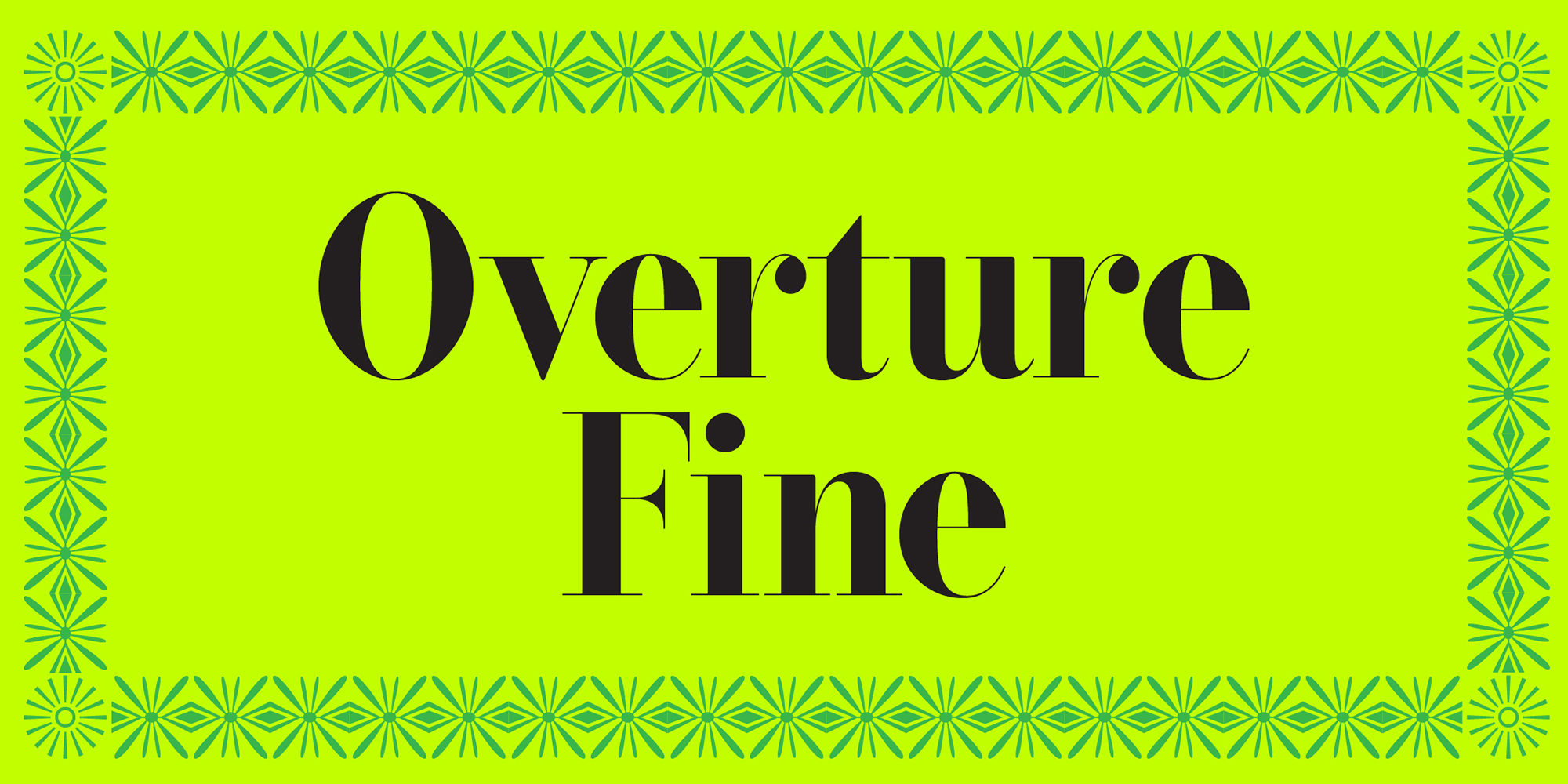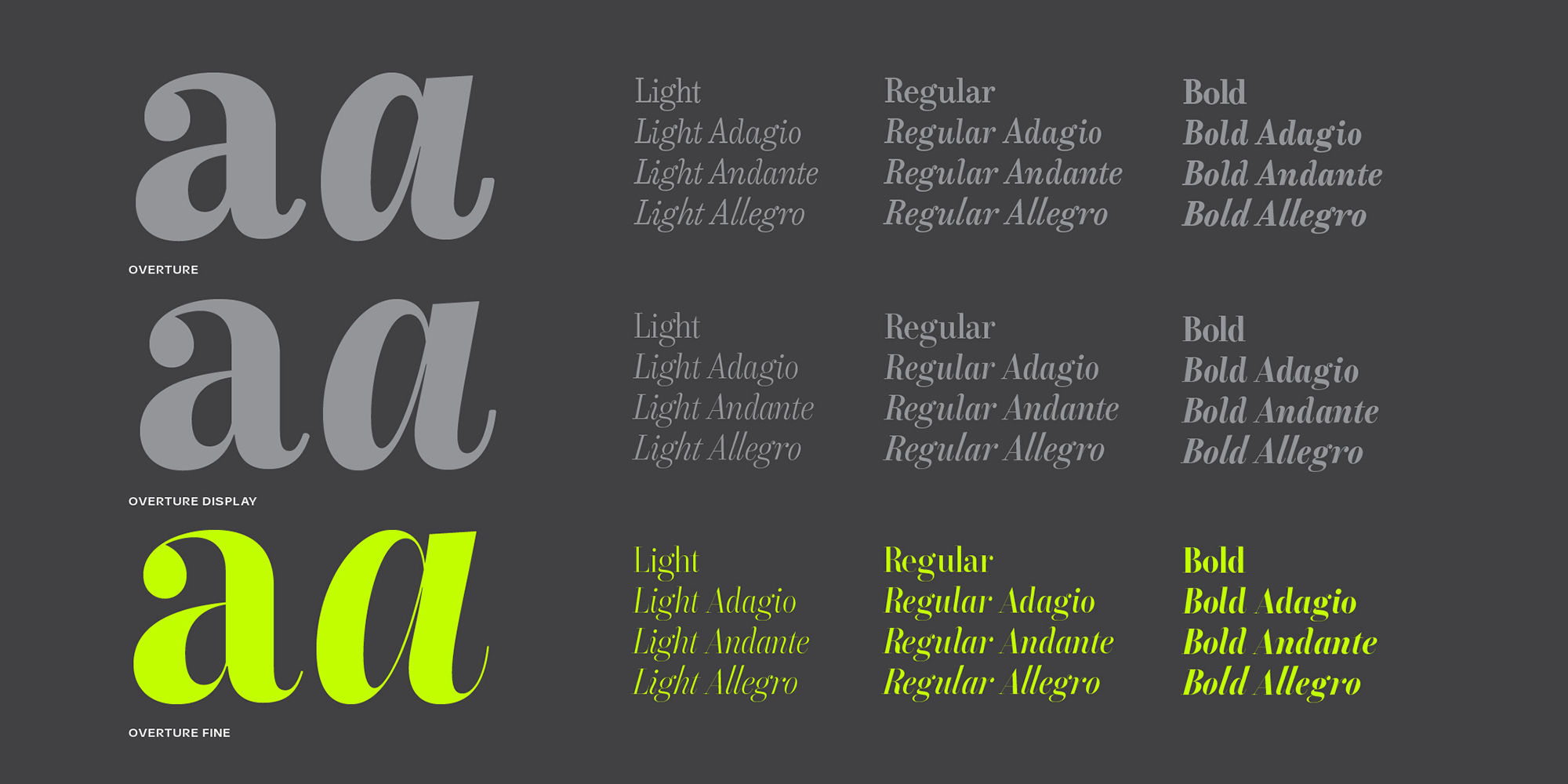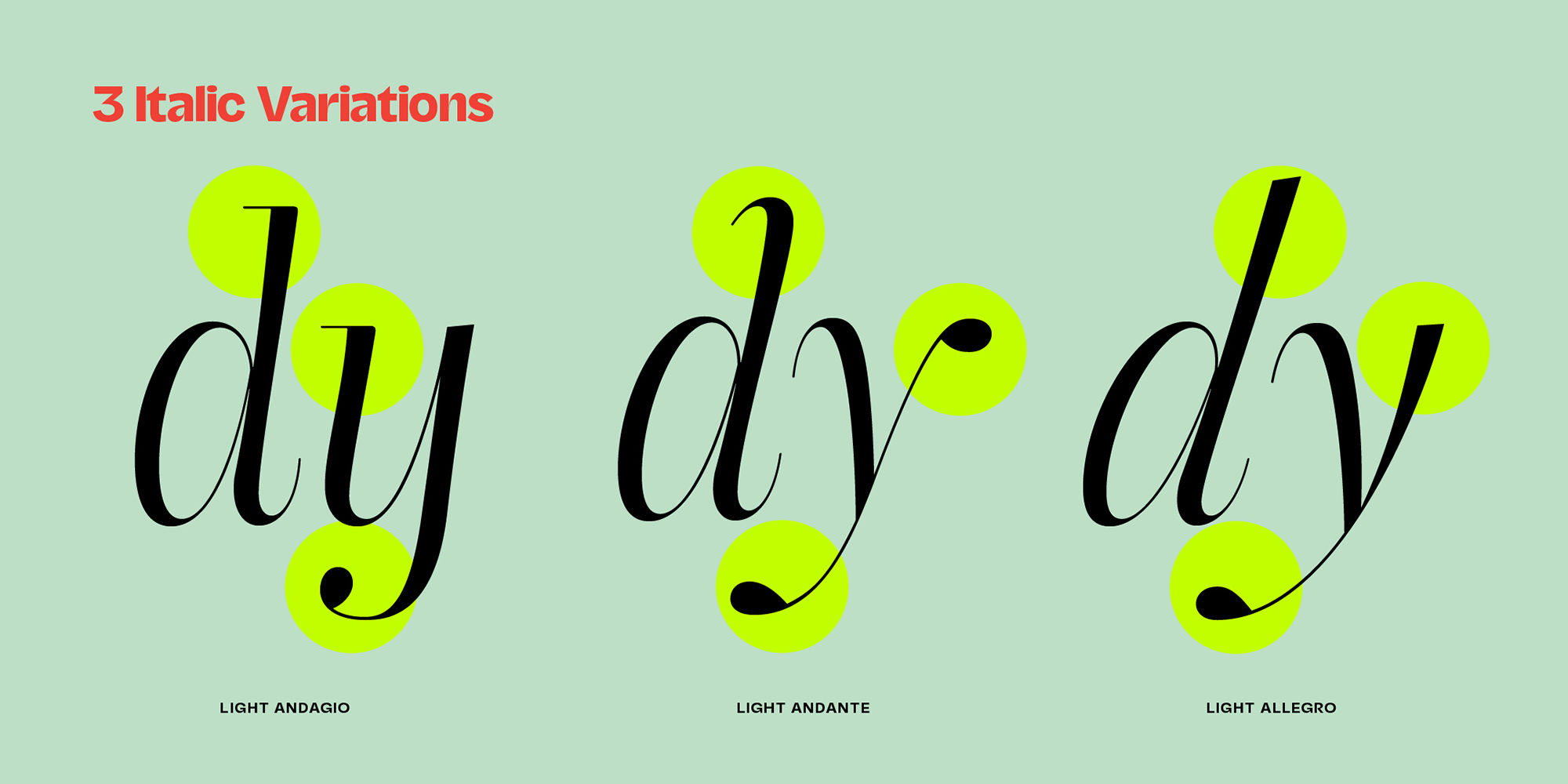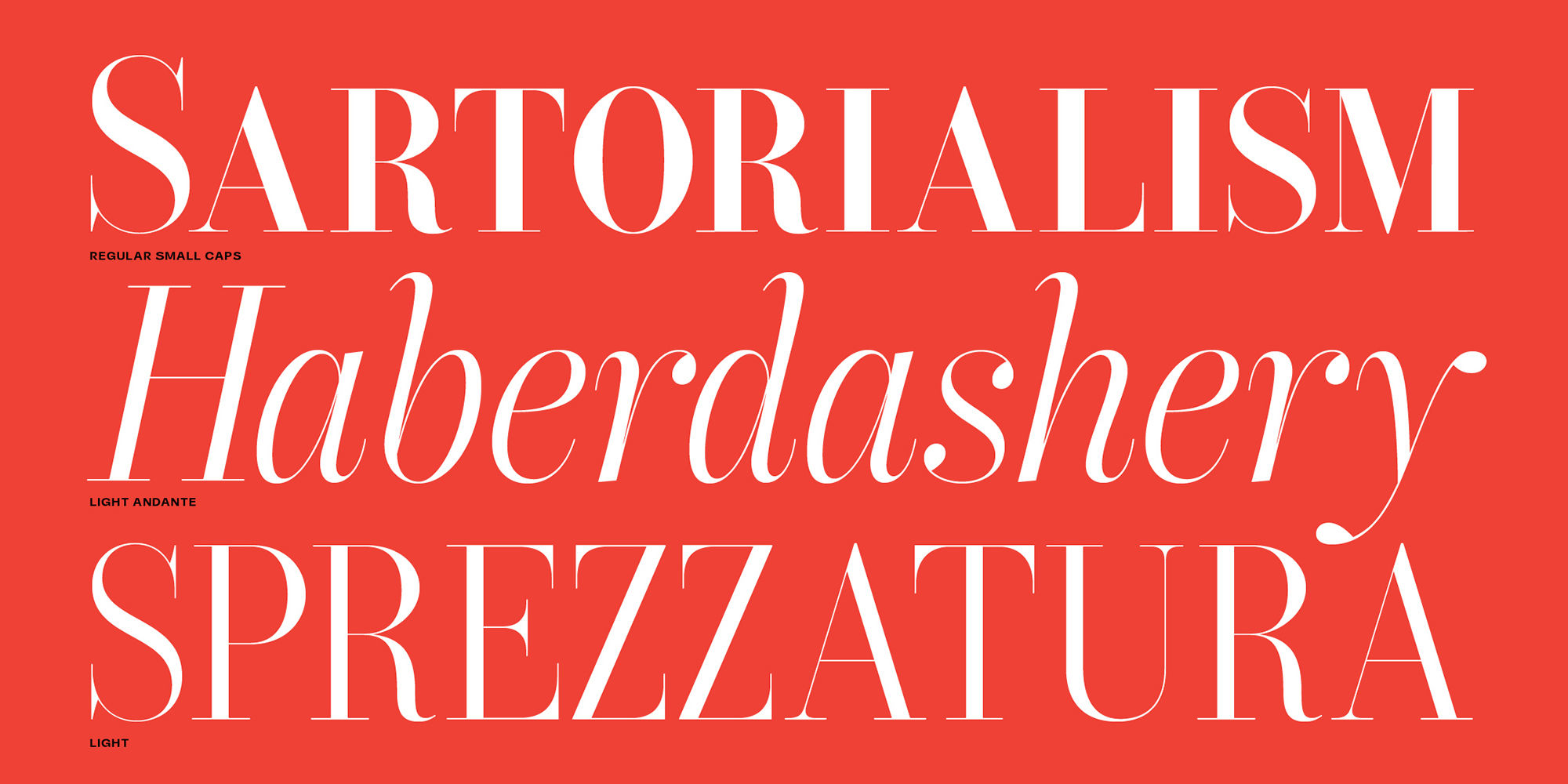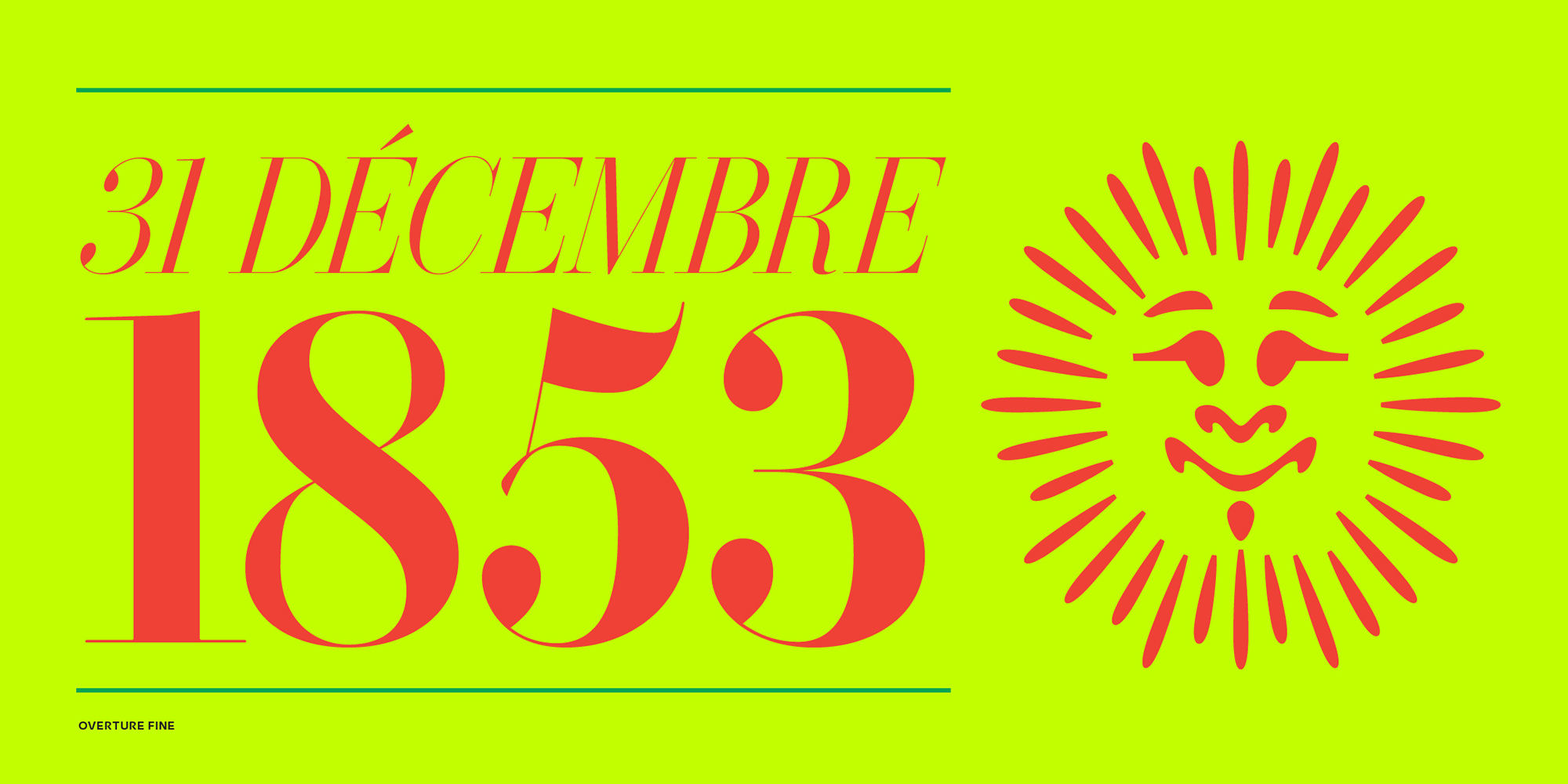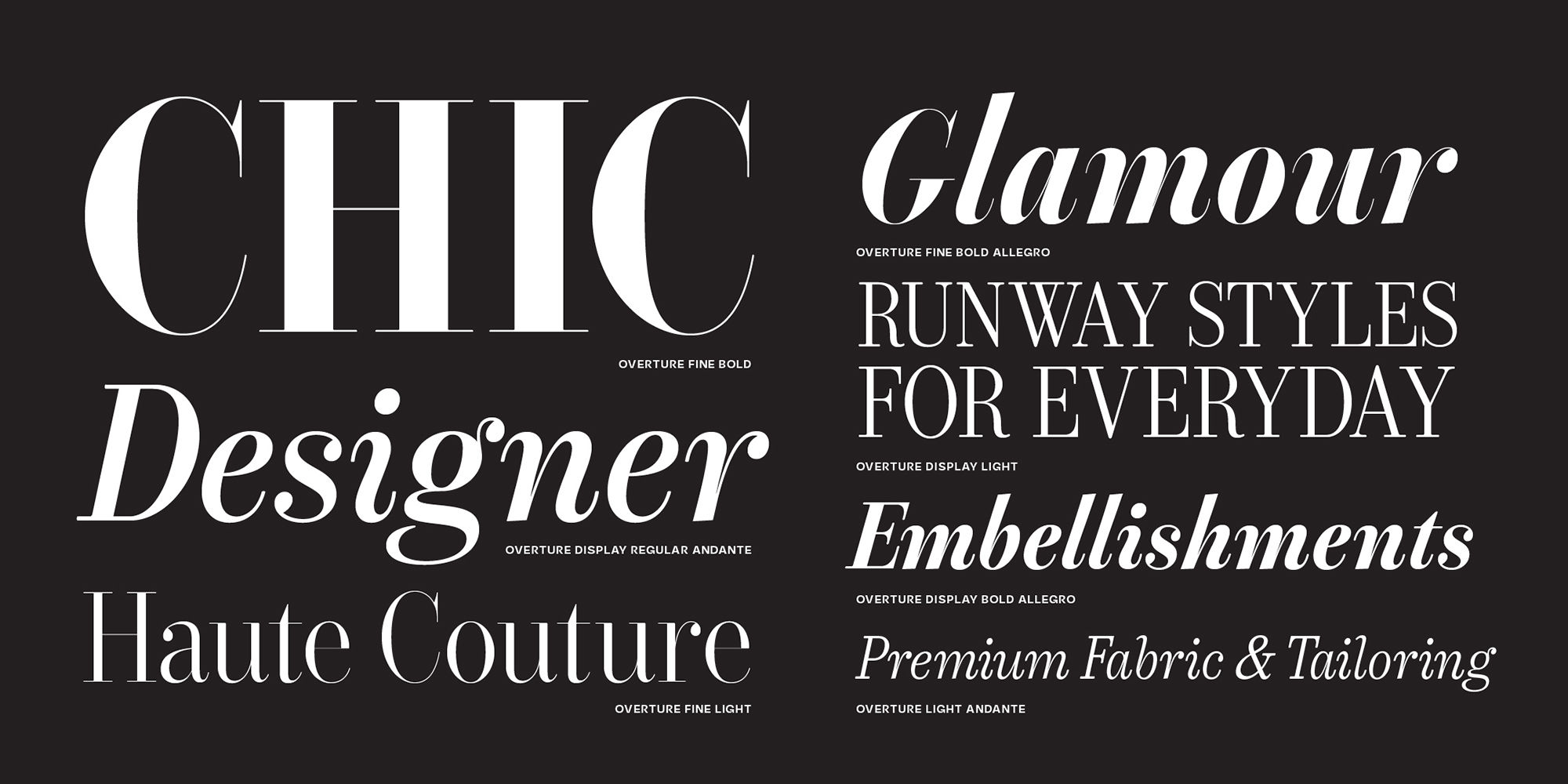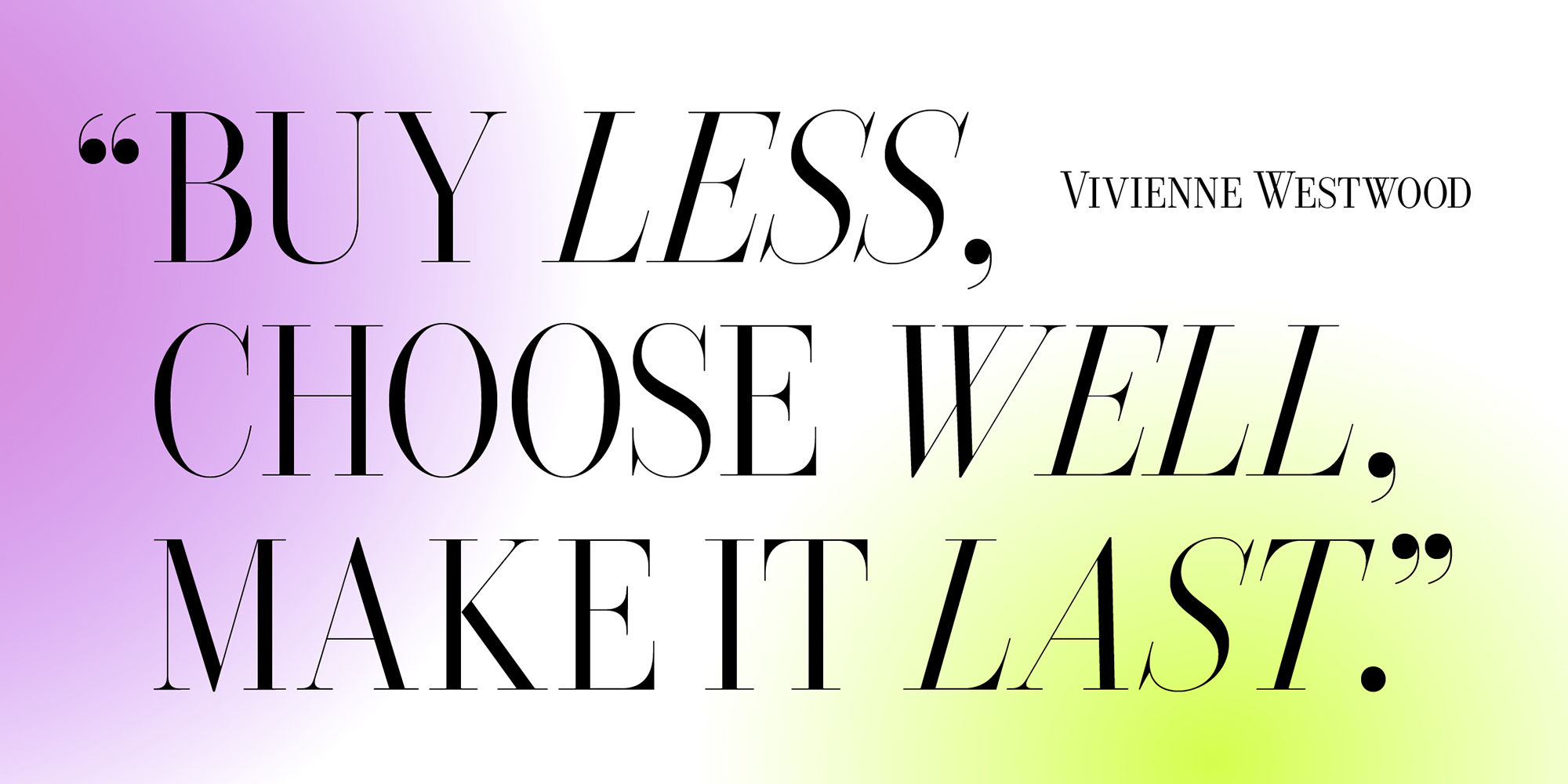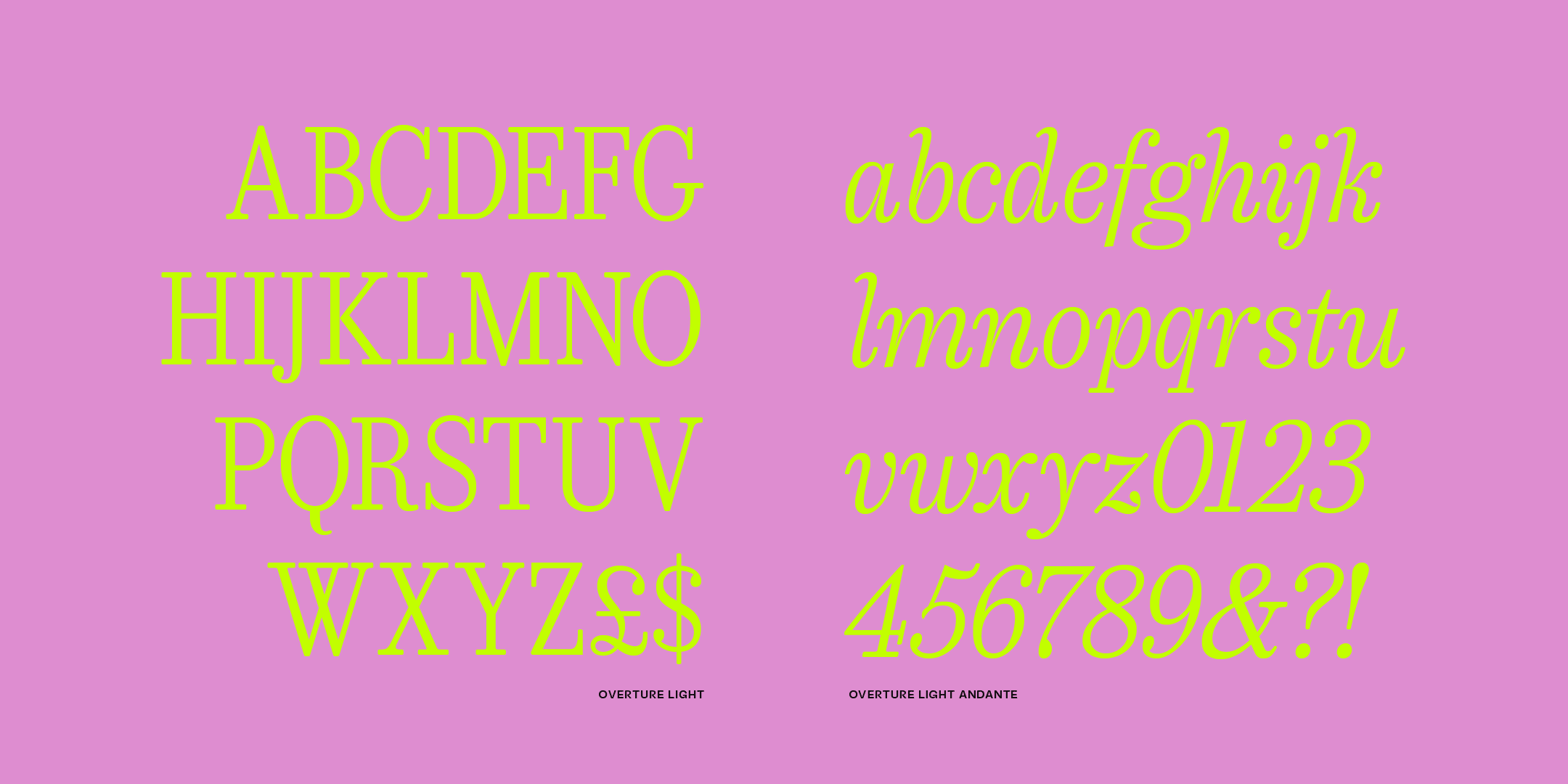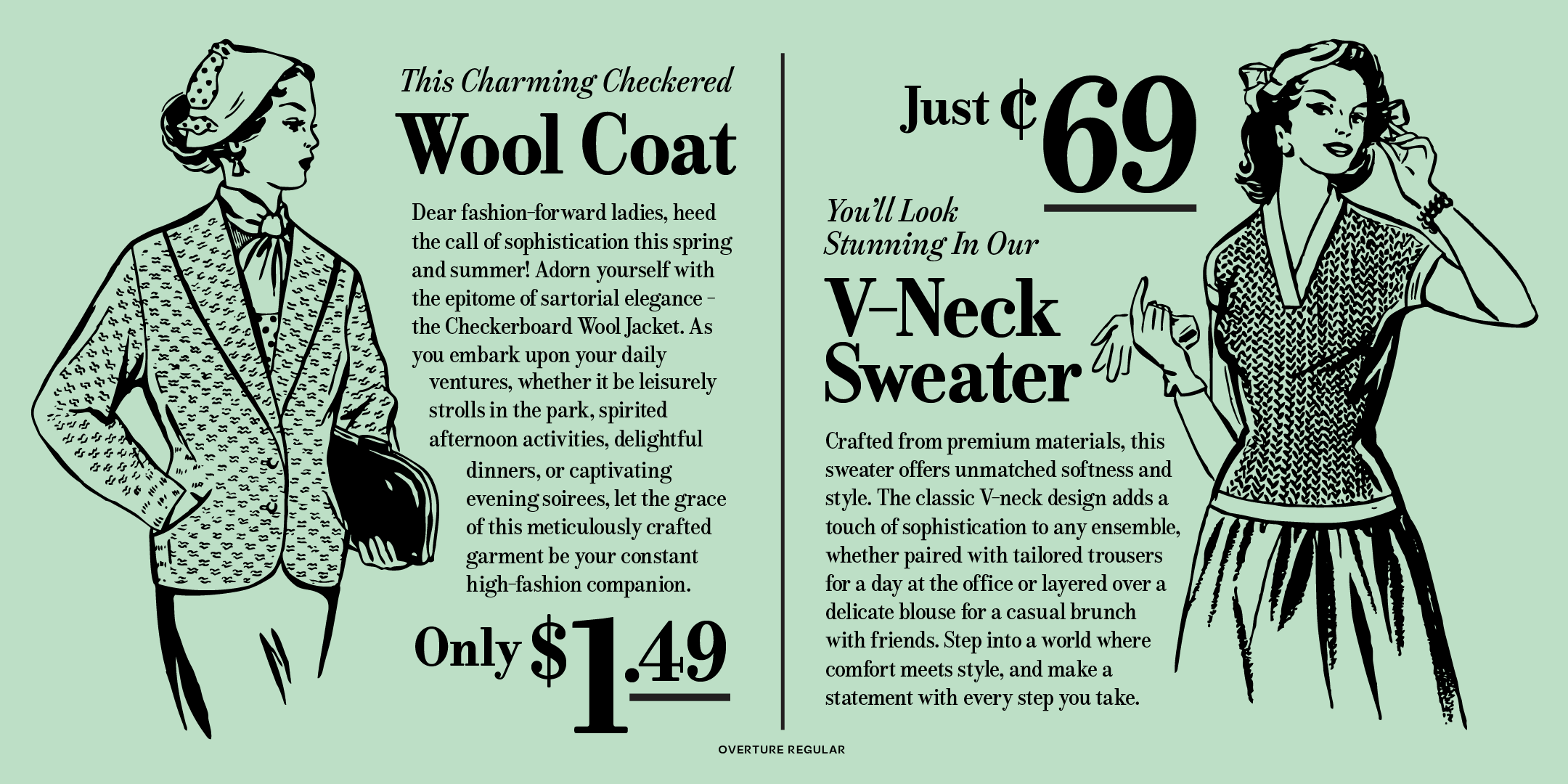
Overture Fine
For what feels like eons ago, I released a typeface in the spirit of Bodoni, with less contrast and a more compact footprint. Its name was Donatora. It took some chances, had less than desirable numerals, and I was proud of it—especially since I had only been designing typefaces for a couple of years. A few months later, an Emigre magazine crossed my path, and I discovered Filosofia by Zuzana Licko for the first time (remember, there was a time before social media when we didn’t know the minute something new dropped). I was floored and embarrassed at what I had created. Hers was a masterpiece, quirky and clean, adherent to the idea of Giambattista Bodoni’s masterwork but wholly new. In my eyes, this latest type experiment of Donatora was an abject failure, and I removed it from circulation as fast as I could. One, because it couldn’t compare to the work of someone I genuinely admired; and two, because I couldn't live with the comparisons of such a sophomoric attempt. I did promise myself I would try again, later.
Later came 24 years, um, later. I did feel I had an attempt in me left for a unique take on Bodoni. I started with the Donatora failure; it became the iterative onion skin that I would draw upon to reimagine the good ideas and avoid the bad ones, to be honest. I went back often to review the Manuale Tipografico. As the new typeface evolved, one thing continued to stick out to me: Bodoni’s flexibility with the various italics drawn. So many variations, so many angles, so many use cases. For me, I struggled to settle on just one and ultimately took inspiration from 3 different italic variations at 8, 12, and 16 degrees. Each had its own speed to them. It was that connotation I set for the speed of the italics that ultimately influenced the name of the typeface, Overture. Each weight and optical size would be accompanied with three italics, at three speeds: Adagio, Andante, and Allegro. An homage of sorts to my love of classical music. As a unique bit of trivia, I almost exclusively listened to pieces by Debussy while working on this typeface—a fitting accompaniment, in my opinion.